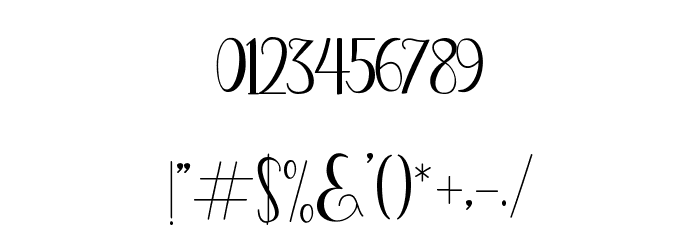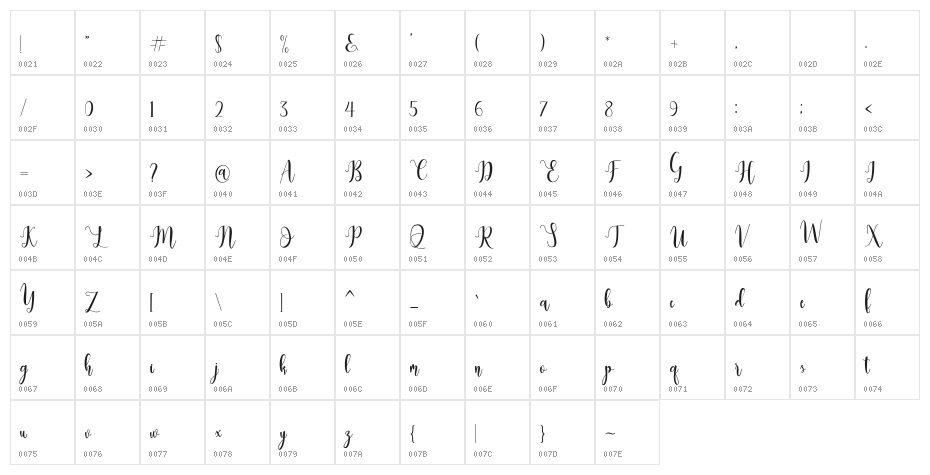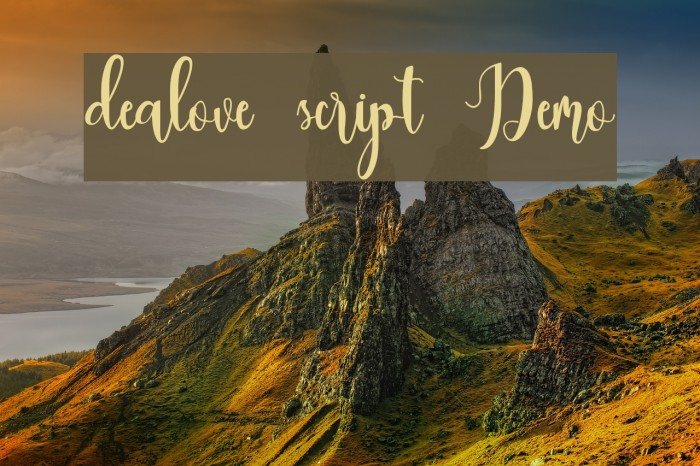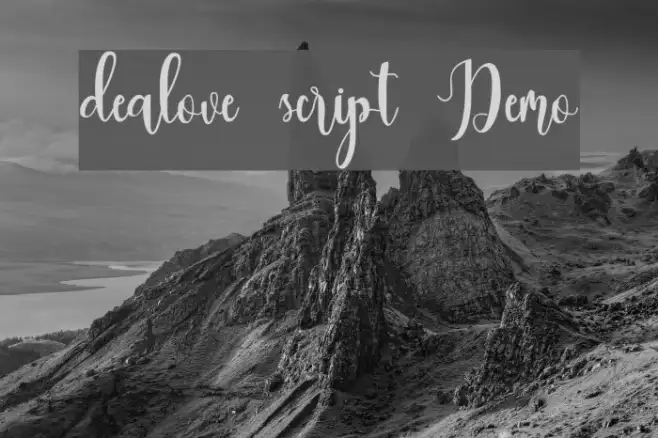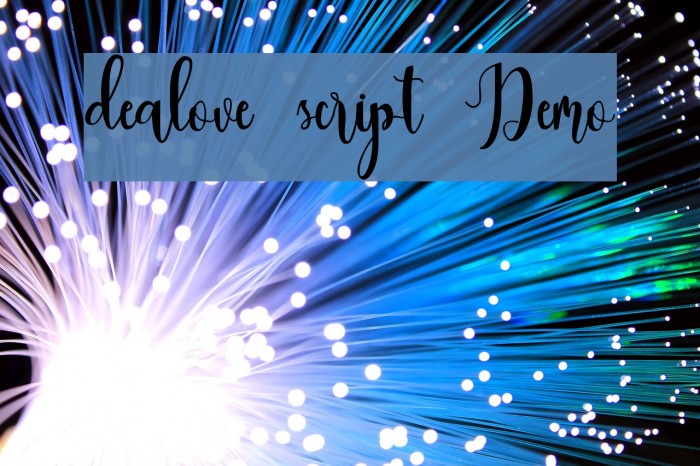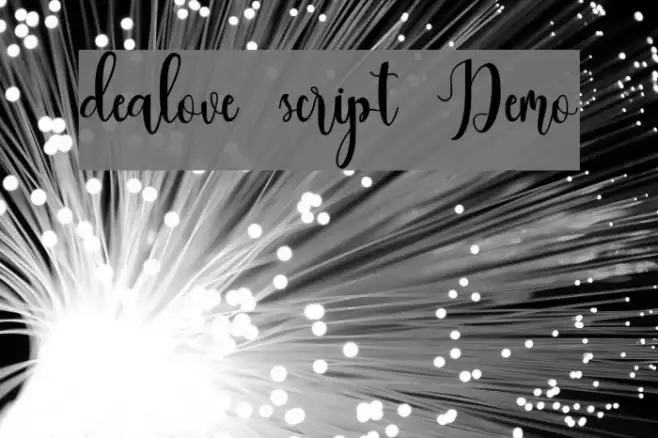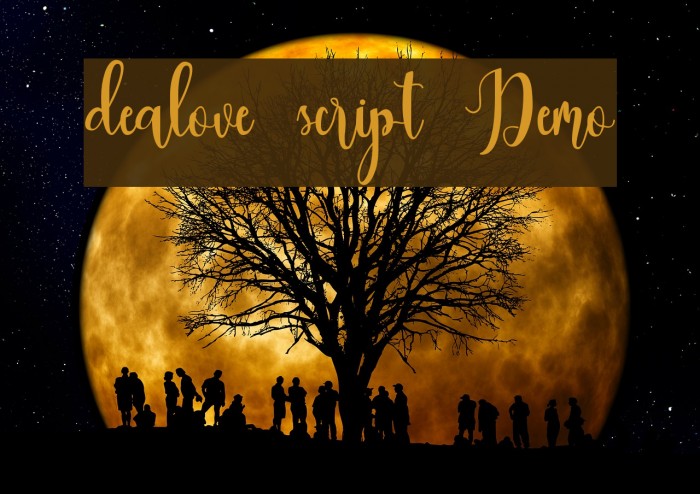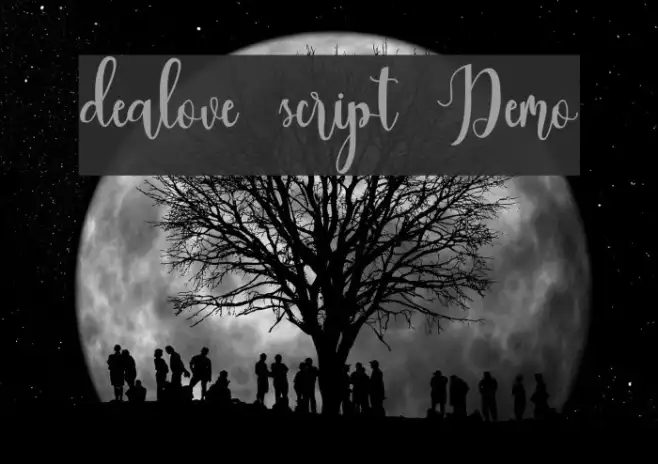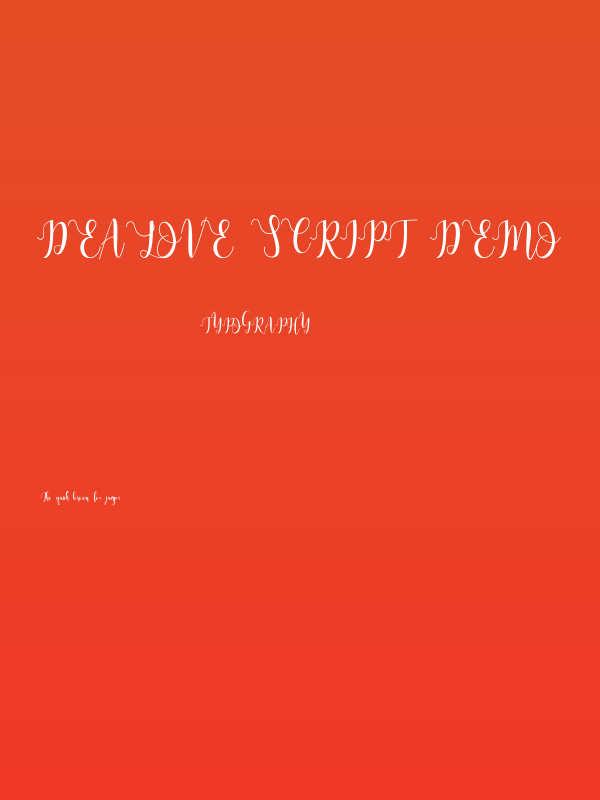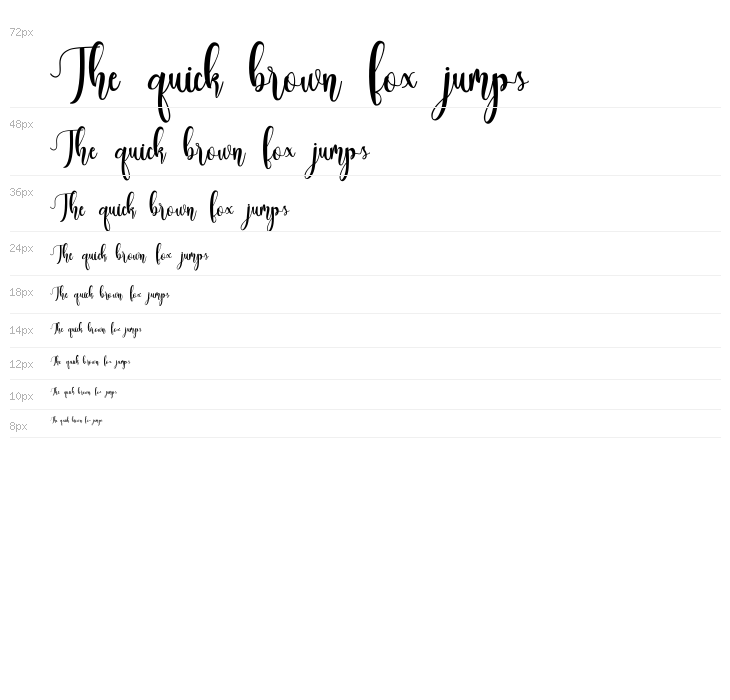
dealove script Demo Font
dealove script Demo Description
This elegant script font features a flowing, cursive style with intricate swashes and loops that give it a sophisticated and artistic appearance. The uppercase letters are particularly ornate, with extended flourishes that add a touch of drama and flair. The lowercase letters maintain a consistent style, offering a smooth and connected look that enhances readability while preserving the decorative nature of the font. The numerals and special characters are designed to match the overall aesthetic, ensuring a cohesive look across all text elements. This font is ideal for projects that require a touch of elegance and creativity.
| Proposed Projects | Wedding invitations, greeting cards, branding, and logo design. |